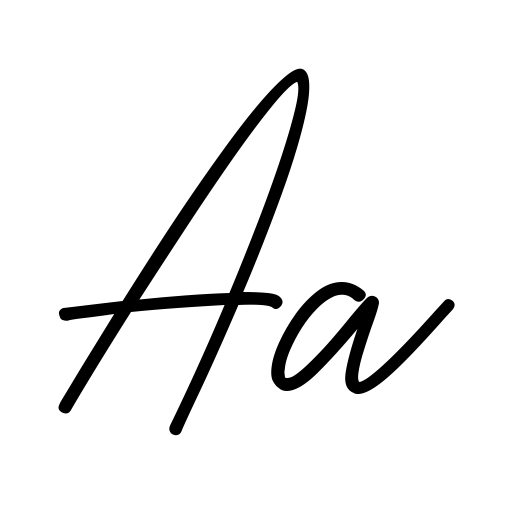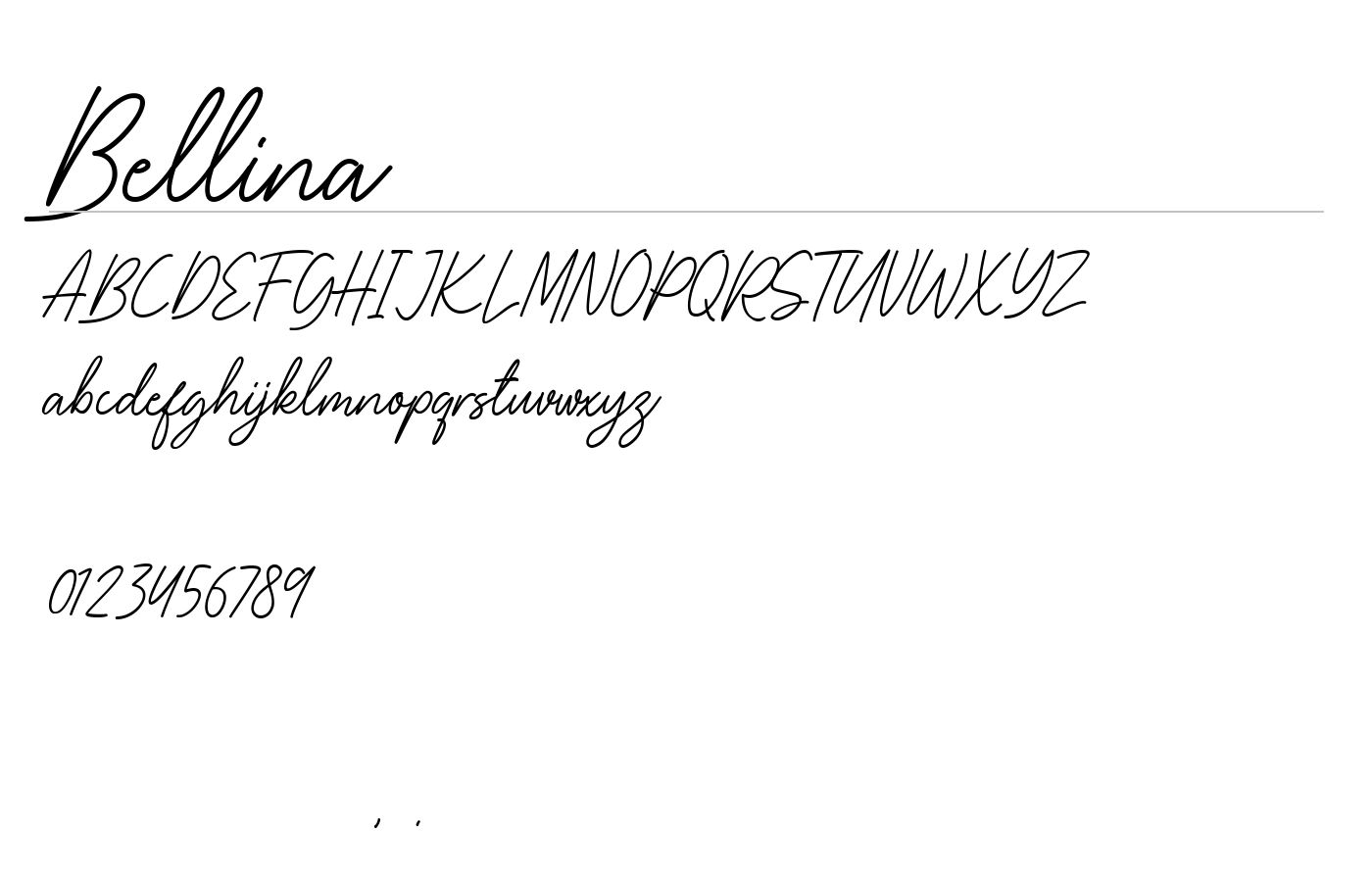
Bellina is an elegant, slender script font with a smooth, flowing style that mimics natural handwriting. Its light weight and slightly condensed letterforms give it a delicate, refined feel, making it ideal for sophisticated branding, invitations, and stylish editorial use where a personal, graceful touch is desired.
Bellina Font
About Bellina Font
| Font family | Bellina Font |
| Designer | Iqbal Pauji |